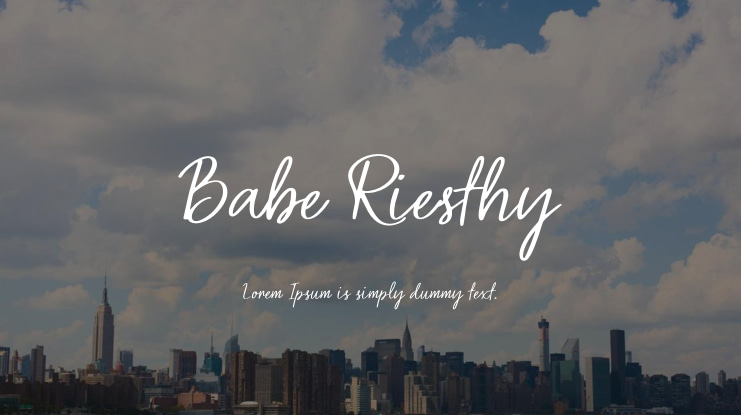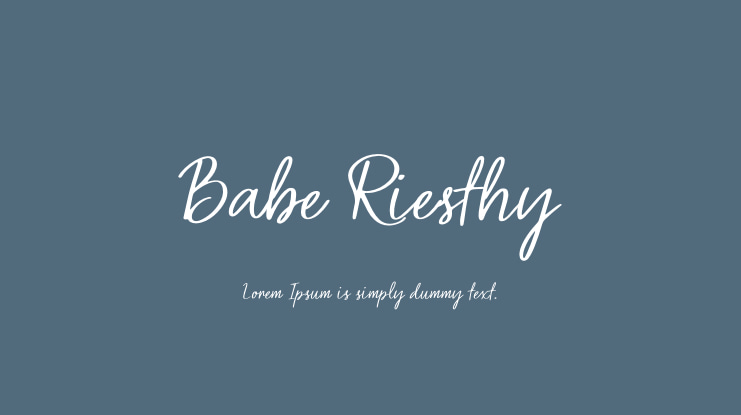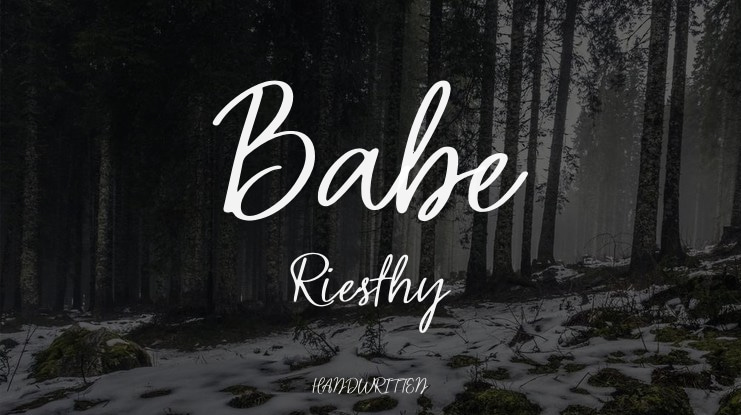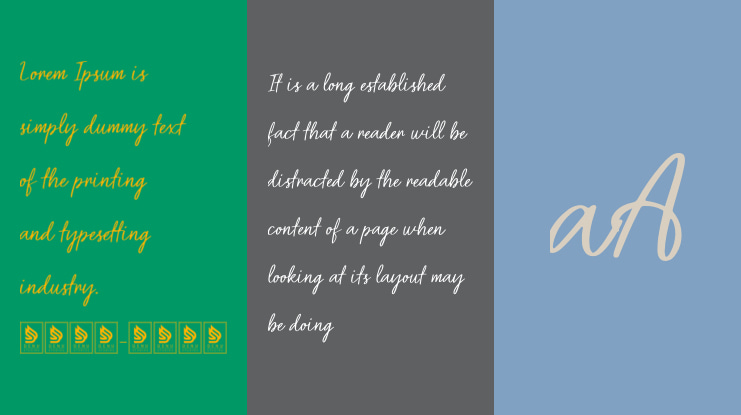
Babe Riesthy Font
Babe Riesthy | Handwritten Casual is designed for a variety of projects such as logos, branding, homeware designs, product packaging, mugs, quotes, posters, shopping bags, t-shirts, book covers, name cards, invitation cards, greeting cards, labels, photography, watermarks, special events, and any other projects that need a handwritten casual touch.